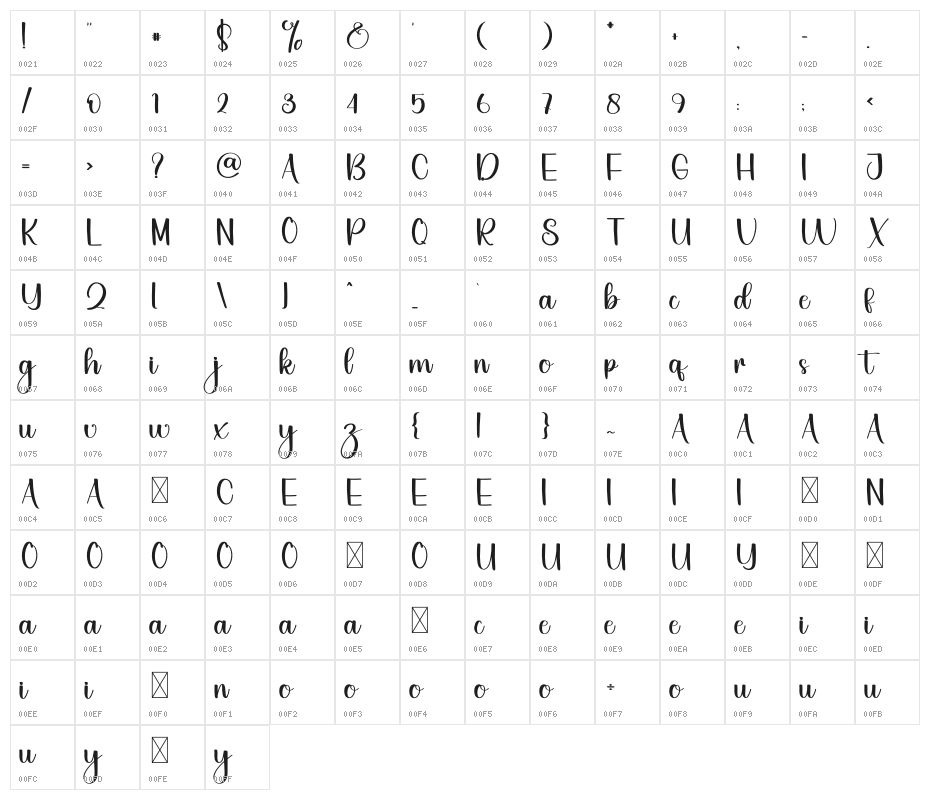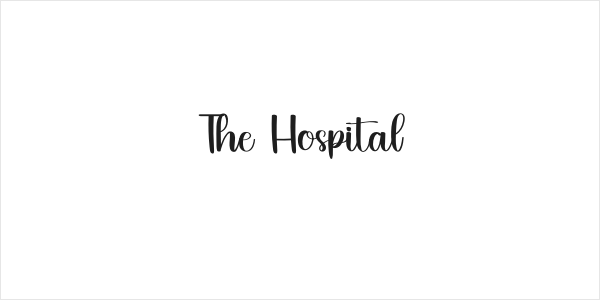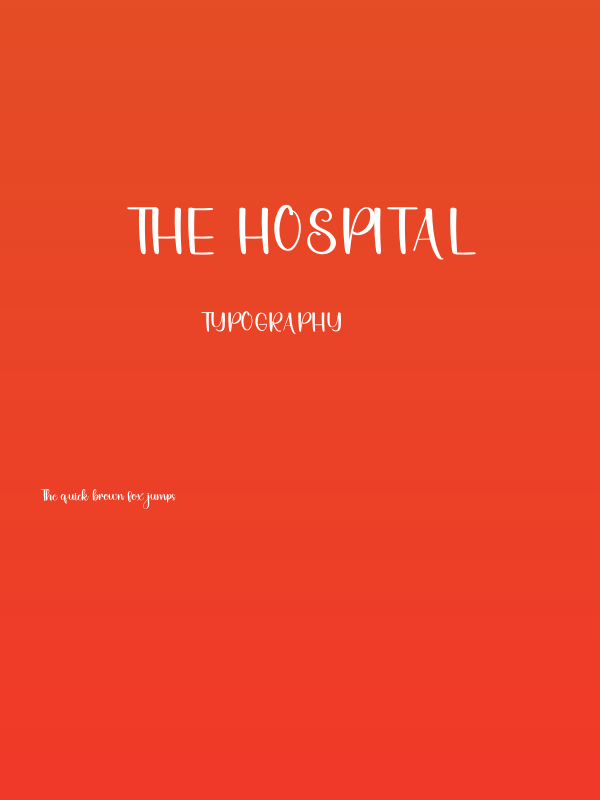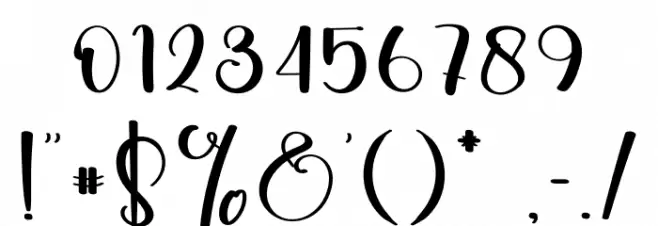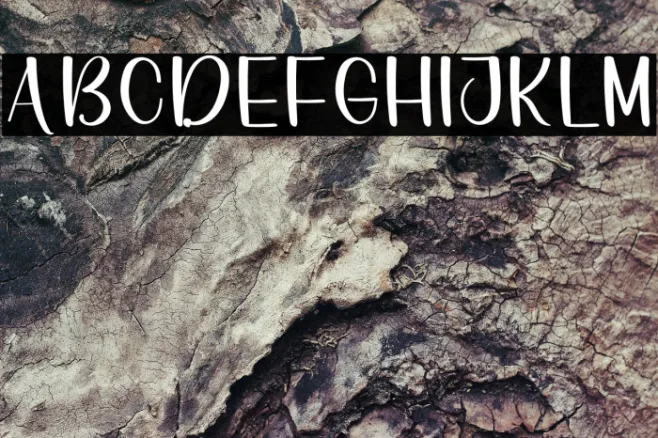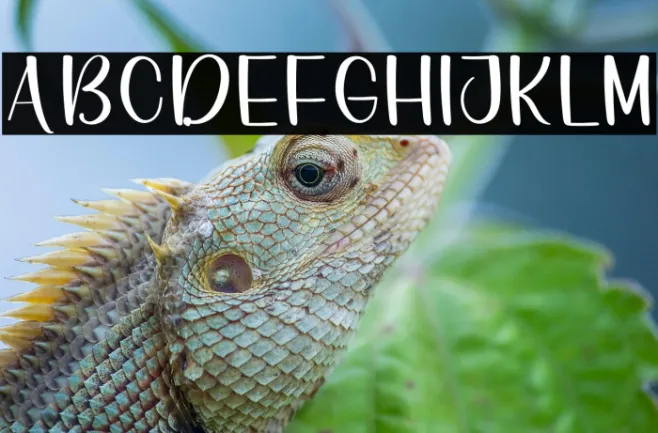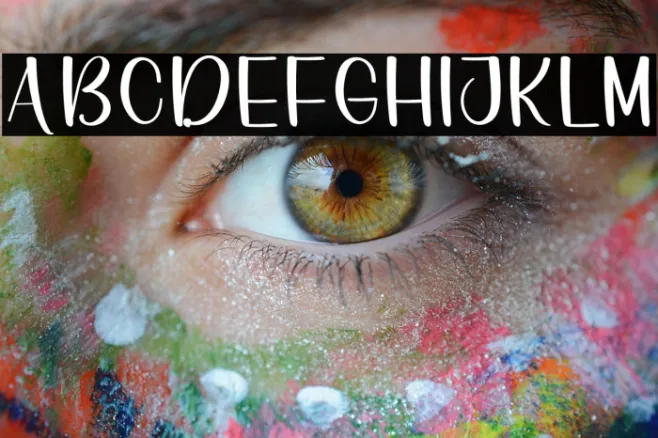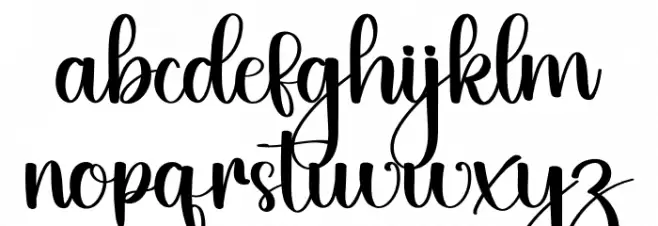
The Hospital Font
The Hospital Description
This font features a playful and elegant script style with a handwritten feel. The uppercase letters are bold and slightly condensed, while the lowercase letters exhibit a flowing, cursive design with intricate loops and swashes. The numerals are consistent with the overall style, maintaining a balance between readability and decorative flair. Special characters are creatively integrated, adding to the font's charm. The overall appearance is lively and artistic, making it suitable for creative and expressive projects.
| Width | Condensed |
| Use Case | Logos, Headlines, Invitations |
| Proposed Projects | Ideal for wedding invitations, greeting cards, branding, and social media graphics. |